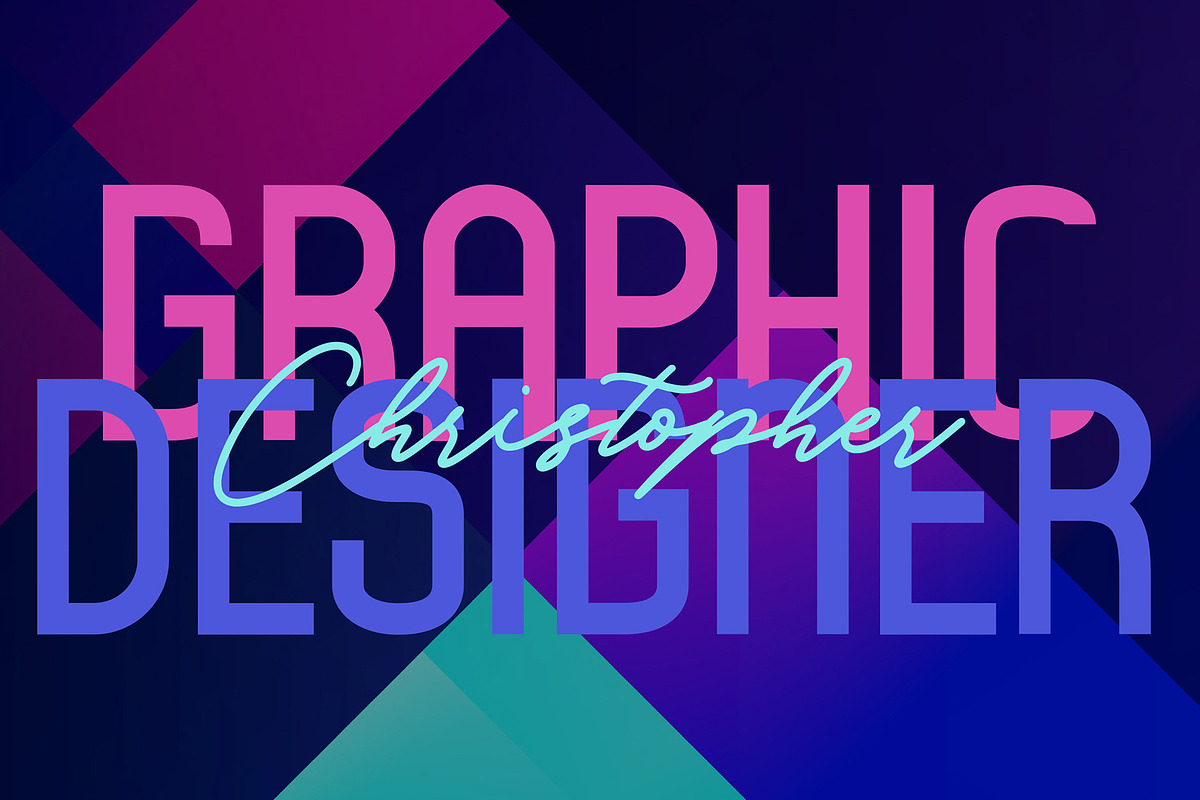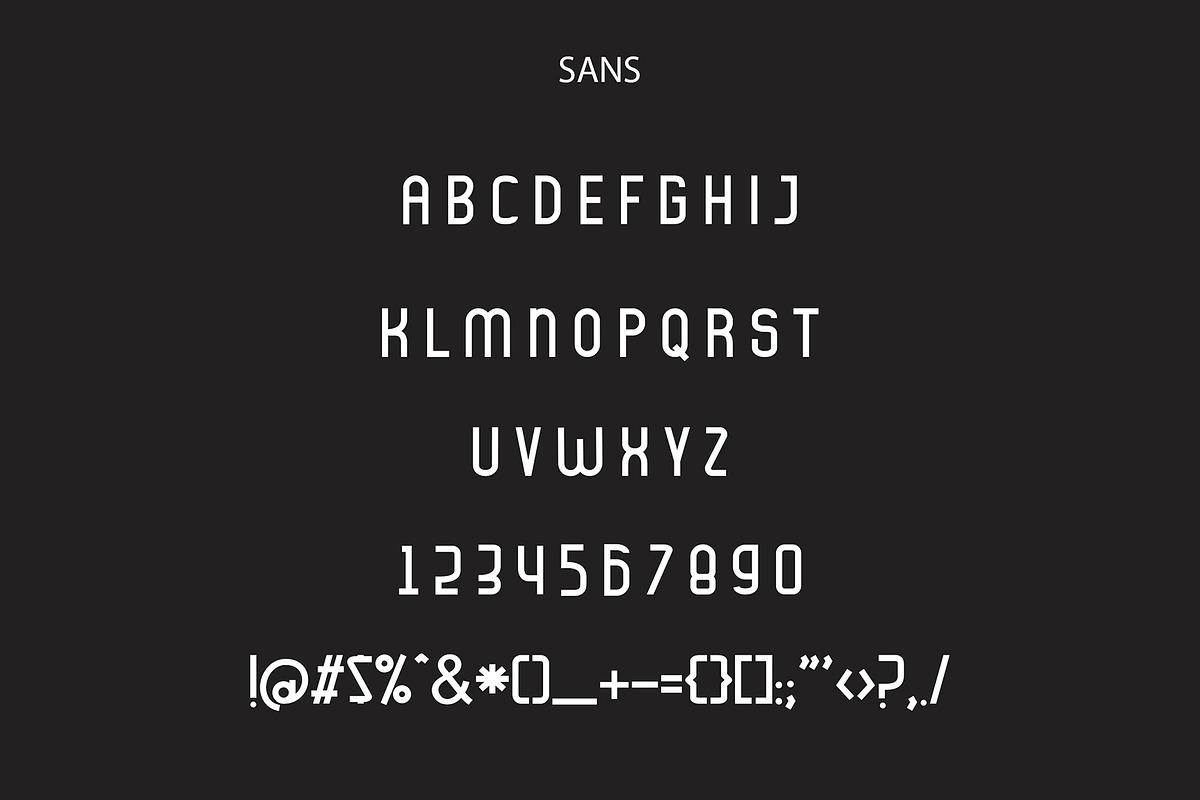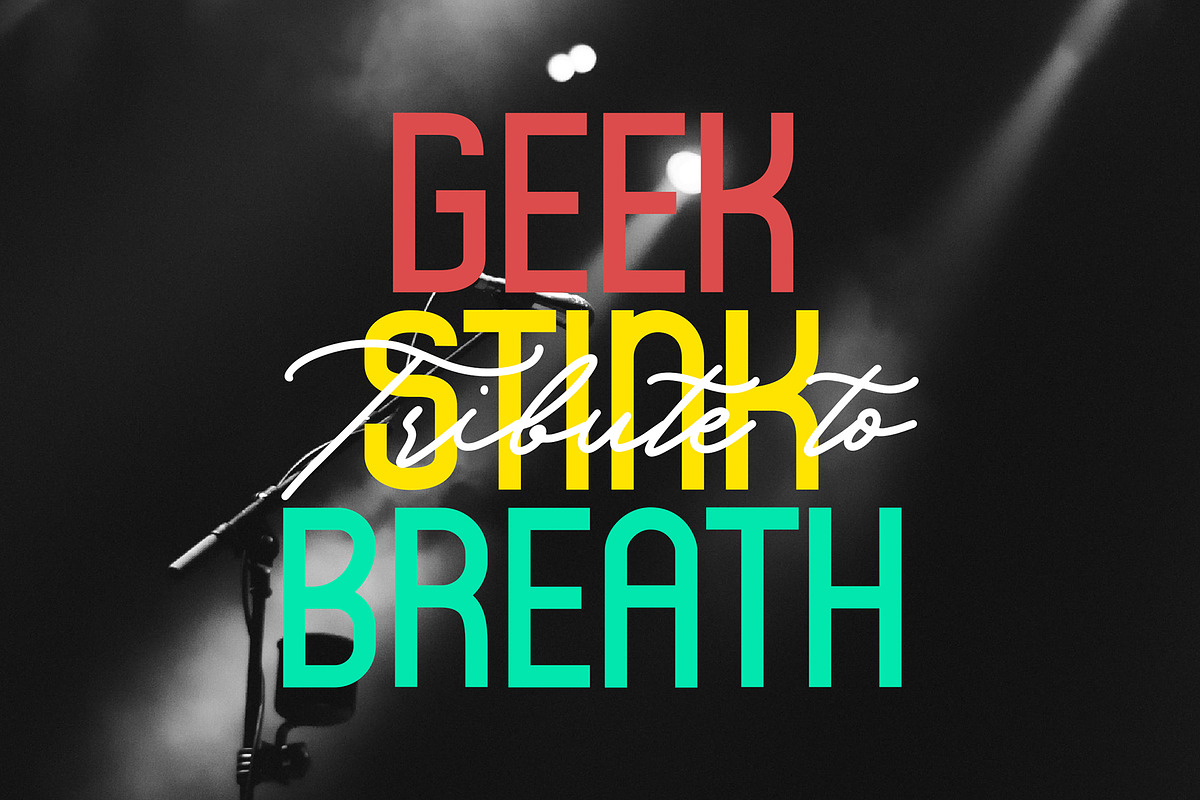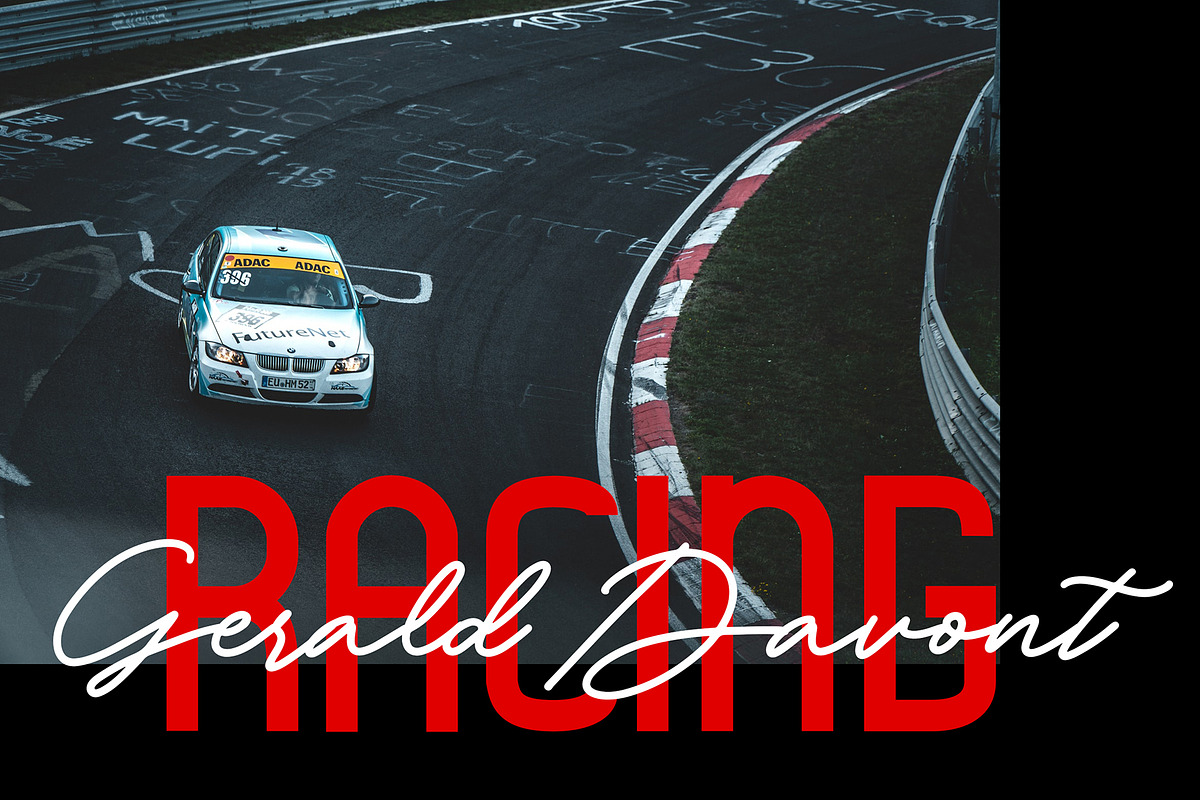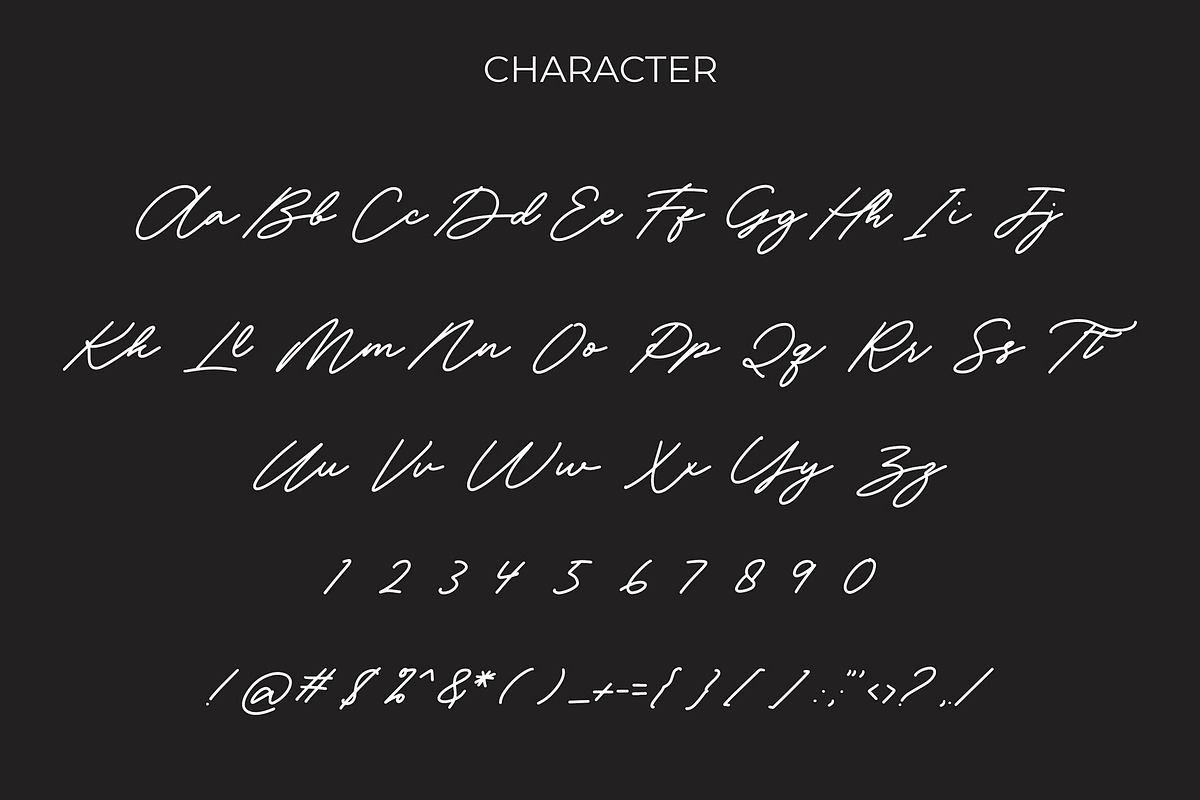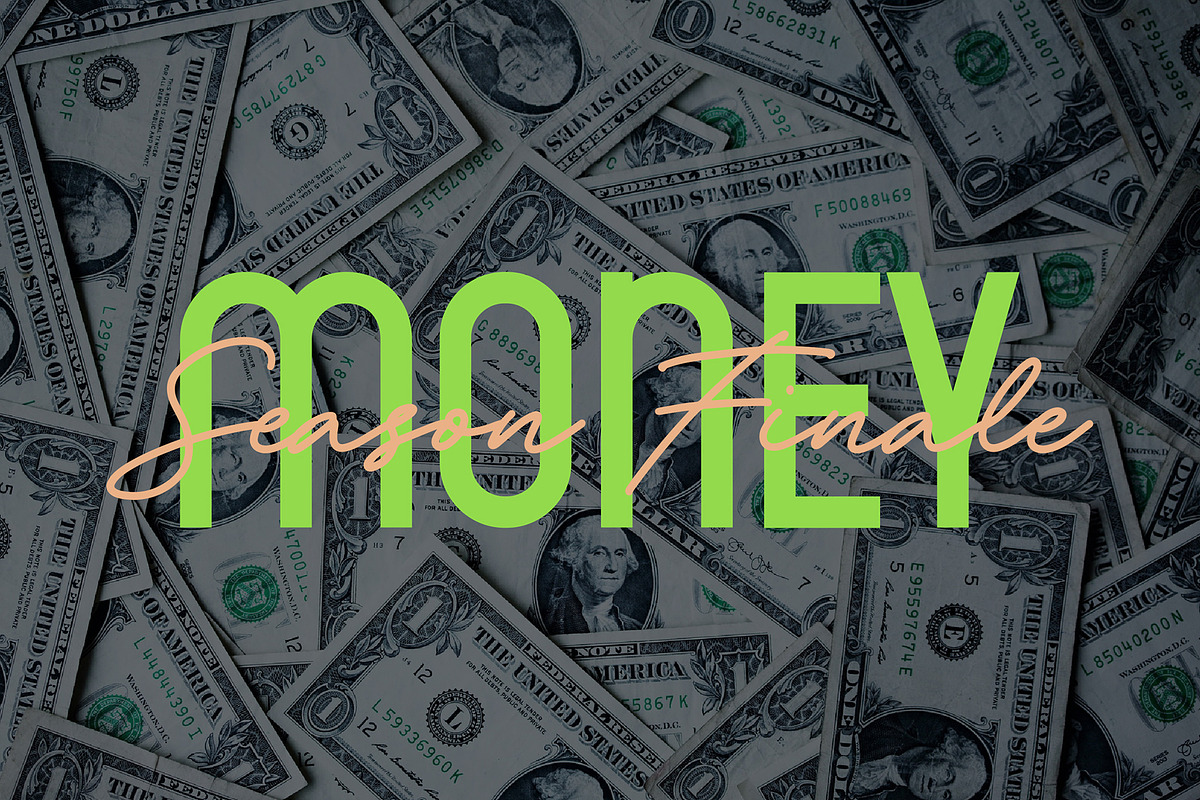
Abariya Font Duo
Abariya Font Duo is the ideal font with adding free sans font for adding an adventurous and authentic feel to your next design idea!
Abariya Font Duo is perfect for branding projects, logo, wedding designs, social media posts, advertisements, product packaging, product designs, label, photography, watermark, invitation, stationery and any projects.
Why Abariya Font Duo is worth a look
Abariya Font Duo by Formatika Studio fits naturally into Branding, posters, packaging, typography.